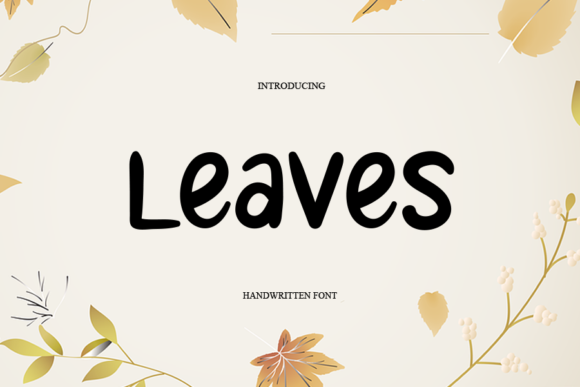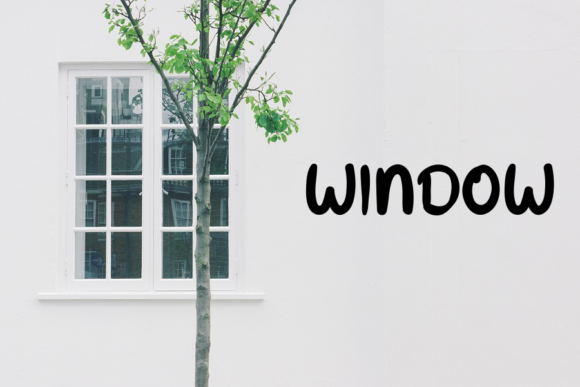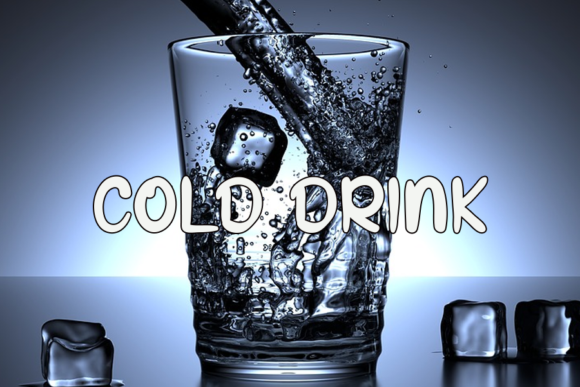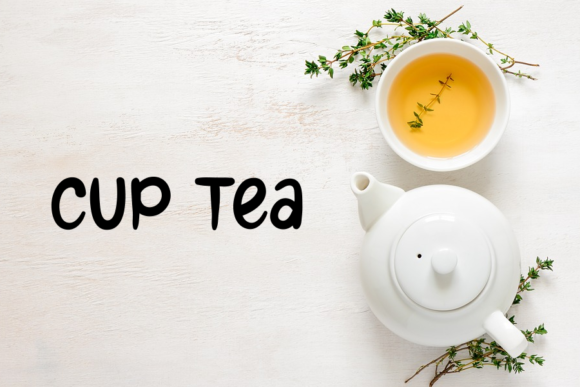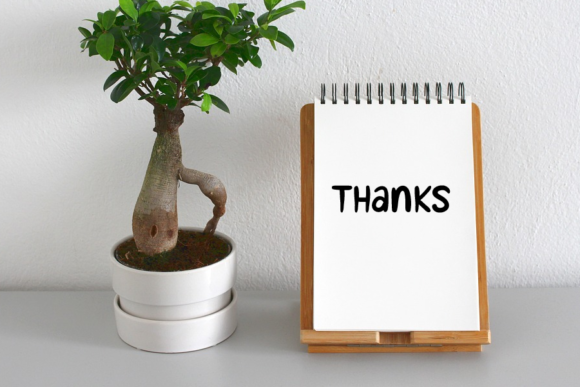
About Leaves Font
Leaves is a mesmerizing handwritten font that exudes delicacy and elegance. Its carefully crafted letters and balanced design make it a true masterpiece. With its versatility and captivating style, this font is sure to elevate any design to new heights.
The distinct and well-balanced letters of Leaves are a testament to the meticulous attention to detail that went into its creation. Each stroke flows seamlessly, creating a harmonious and graceful appearance. The result is a font that exudes sophistication and refinement.
Leaves is a font that can be used in a wide range of design projects. From wedding invitations to branding materials, from social media graphics to packaging, Leaves adds a touch of beauty and elegance to any composition. Its versatility allows it to effortlessly adapt to various design styles and themes.
What sets Leaves apart is its ability to evoke a sense of natural beauty. The flowing letters resemble delicate leaves dancing in the wind, giving the font a whimsical and organic feel. This unique characteristic makes Leaves a perfect choice for projects that aim to convey a sense of nature, tranquility, or natural beauty.
Furthermore, Leaves offers a range of stylistic alternatives and ligatures that provide even more creative possibilities. These additional glyphs allow you to customize the typography and create unique combinations that suit your design vision. From swashes to decorative elements, Leaves gives you the freedom to add your personal touch and create truly breathtaking designs.
In conclusion, Leaves is a delicate and elegant handwritten font that will elevate any design with its distinct and well-balanced letters. Its versatility and captivating style make it a go-to choice for designers who seek beauty and sophistication. Fall in love with Leaves’ mesmerizing charm and let it inspire you to create spectacular designs that leave a lasting impression.